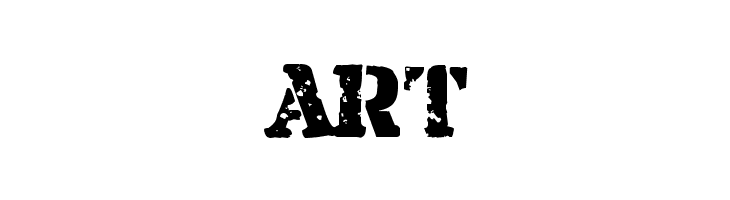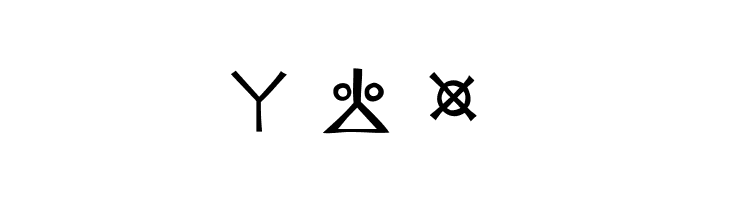
• Edifice Thin
A sleek, modern font with thin, elegant strokes and a sophisticated appearance.
• Edisson
A decorative and artistic font with intricate swirls and flourishes.
• Edo
• Egipet Bold
A bold, slab serif font with a strong, authoritative presence.
• EgyptChildren
Decorative pictogram font inspired by Egyptian hieroglyphs.
• EgyptRund
A bold, slab serif font with a vintage yet modern appeal.
• EiDesKolumbus-Improvisations
Ornate, illustrative font with abstract, tribal-inspired glyphs in ovals.
• El&Font Bubble
• elaine
A whimsical and ornate font with decorative swirls and curls.
• ElectricFacesOne
An abstract, decorative font featuring geometric symbols and artistic designs.
• ElephantaBlack
A bold, blackletter-inspired font with ornate and dramatic letterforms.
• ElFont
• elfont BLOCK
• elfont gohtic
• ElFont Tag
• ELSymbolsStd
A technical symbol font with electrical and appliance icons.
• Empire State Deco
A bold, Art Deco-inspired font with geometric shapes and strong vertical lines.
• Empire State NF
A bold, geometric font with Art Deco influences and a futuristic style.
• EmpireStateNF
A bold, geometric font with an architectural, three-dimensional style.
• Emporium NF
A decorative, abstract font with geometric shapes and bold contrasts.
• Empty Trash
• Endbuster
A bold, angular font with sharp edges and high contrast, perfect for impactful designs.
• England squad 2006